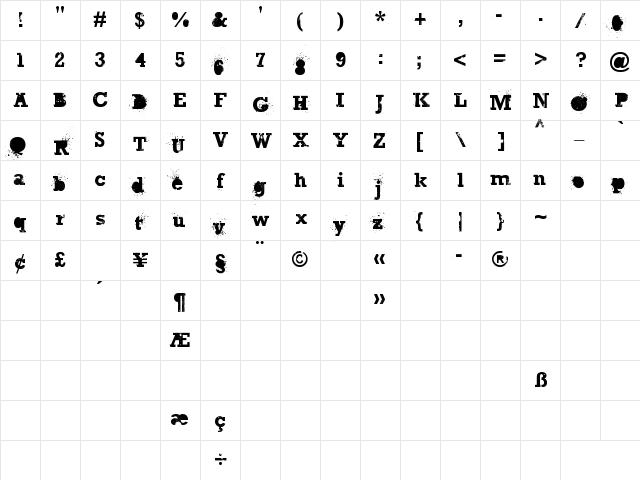
The Great Thunder Regular Free Font
The Great Thunder Regular
Design Context for The Great Thunder
The Great Thunder is a composed and adaptable typeface that performs quietly and consistently across a wide range of design contexts.
Pro Tip: Use The Great Thunder in both headline and body roles to test its range before committing to a single application.